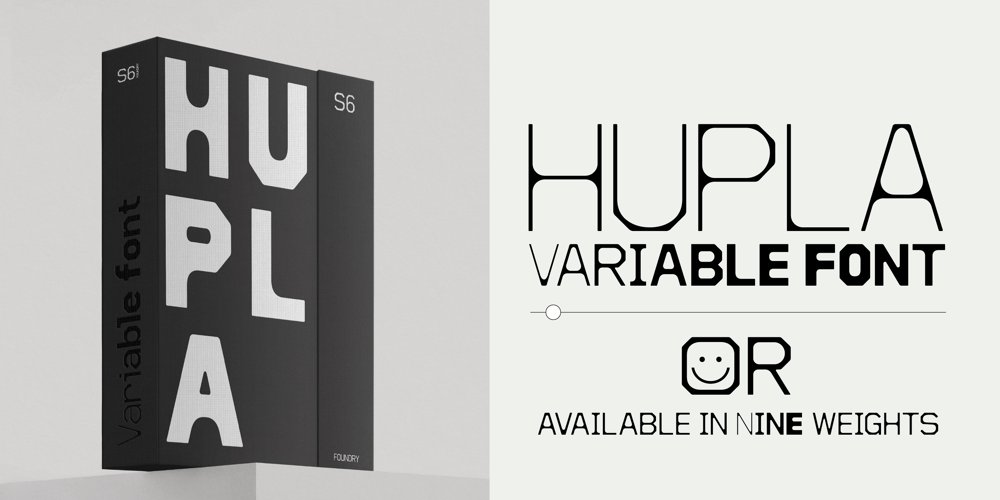
Hupla Font Family was designed by Paul Henry Robb and published by S6 Foundry. Hupla contains 10 styles and family package options. Hupla is a stylistic mechanical font developed within a set grid, for use at both text and display sizes, designed with a complete set of OpenType stylistic set. Ideally suited for headlines, large-format prints, brand identities, social media, advertising, editorial design, posters, magazines, logos, headings, body copy, digital and more.